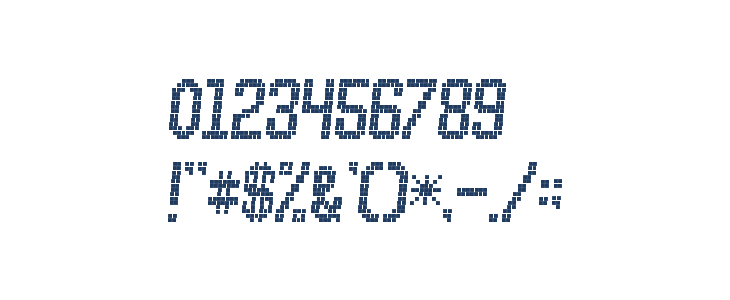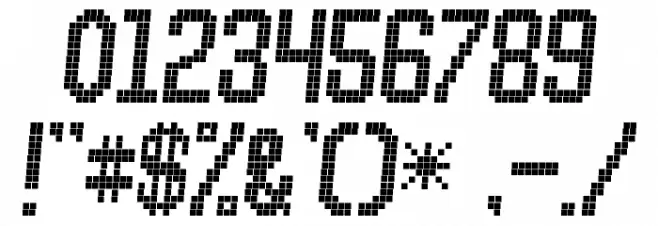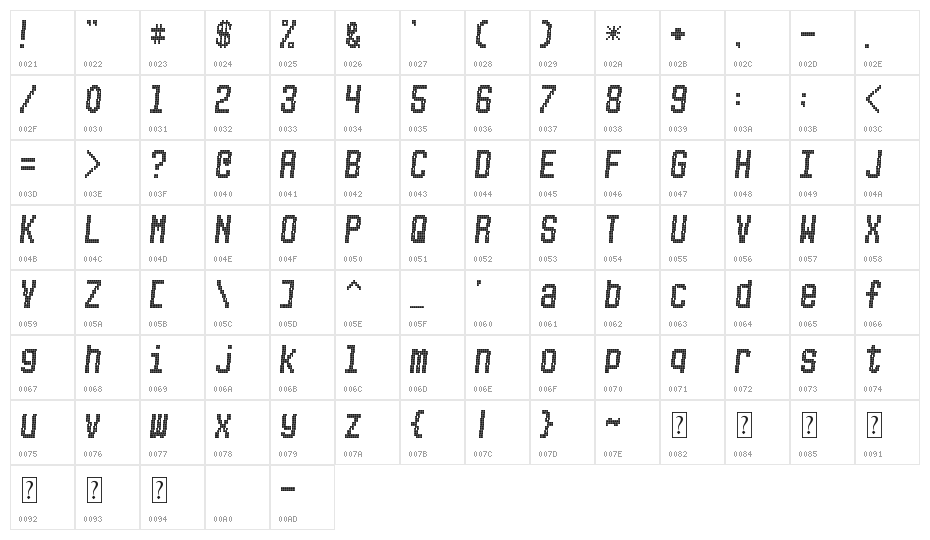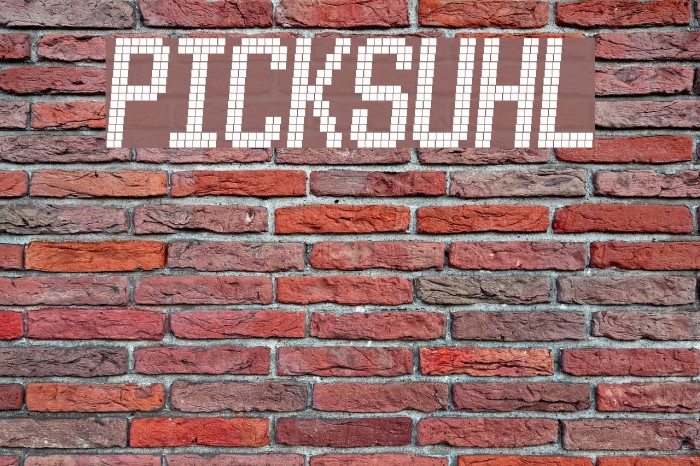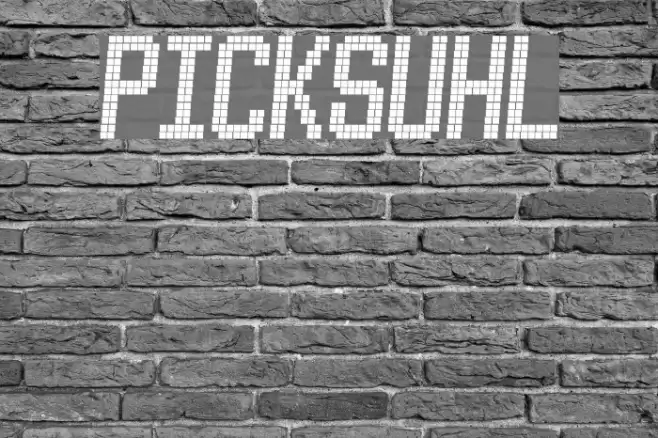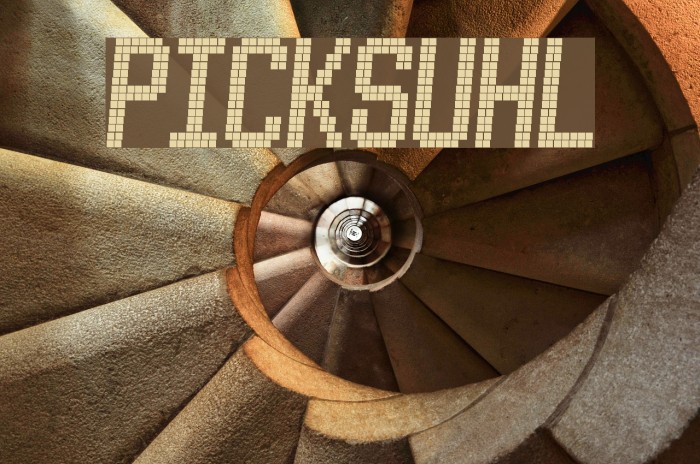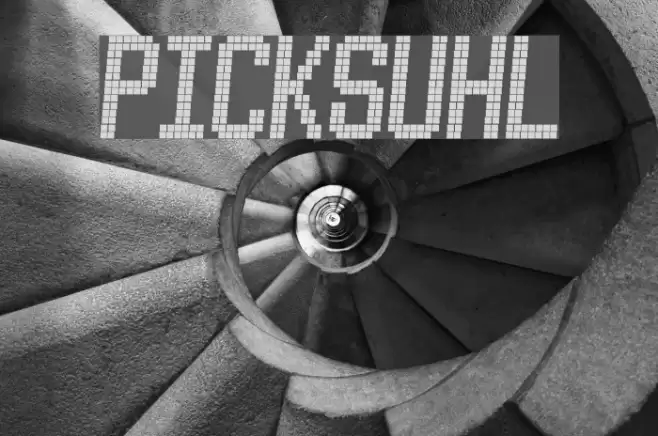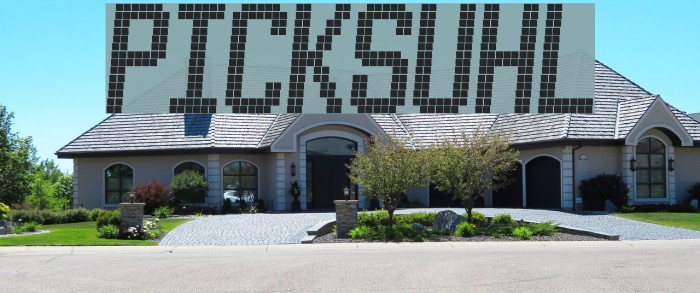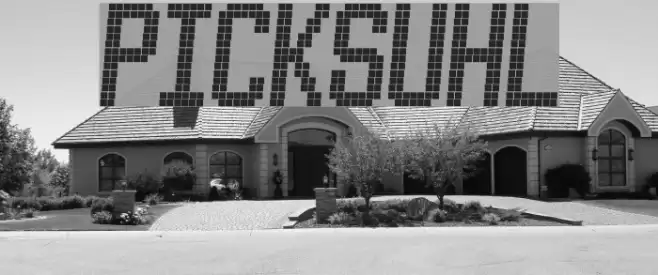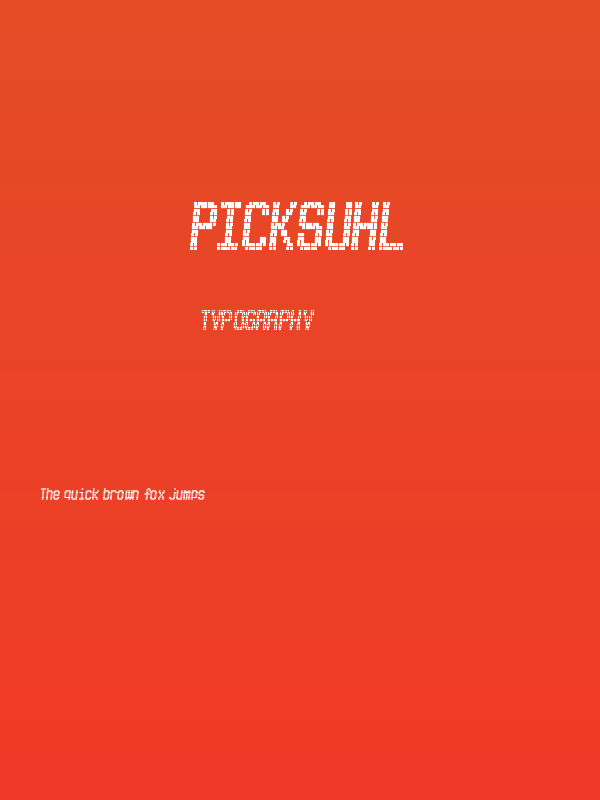
PICKSUHL Font
PICKSUHL Description
This font features a distinctive pixelated design, reminiscent of early digital displays and retro video games. Each character is constructed from a grid of small squares, giving it a blocky, geometric appearance. The uppercase and lowercase letters maintain a consistent height, while the numbers and special characters follow the same pixelated style. This font's unique aesthetic makes it ideal for projects that aim to evoke nostalgia or a digital, tech-inspired theme. Its uniformity and clear legibility ensure it stands out in any design.
| Use Case | Headlines, Logos, Digital displays |
| Proposed Projects | Ideal for video game graphics, retro-themed posters, digital art, and tech-related branding. |